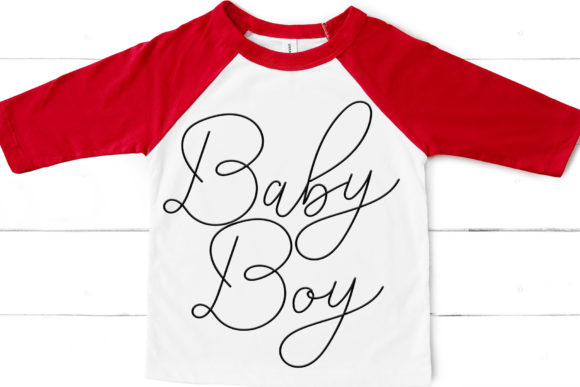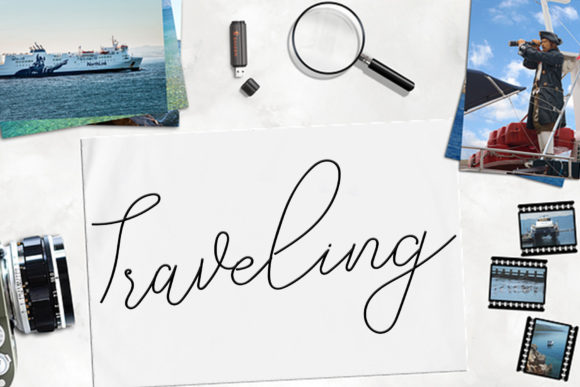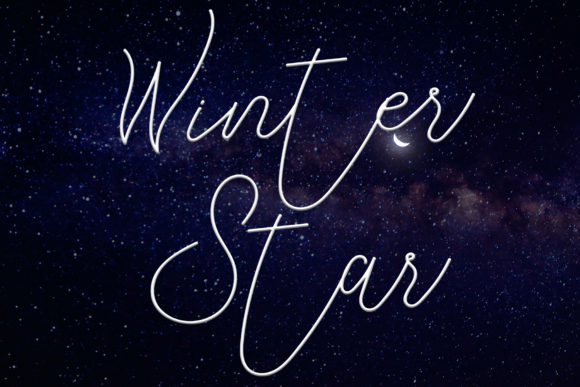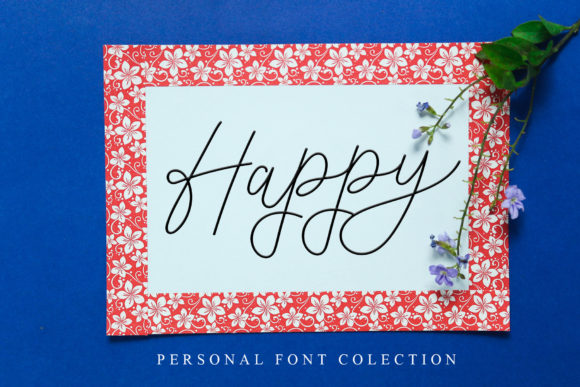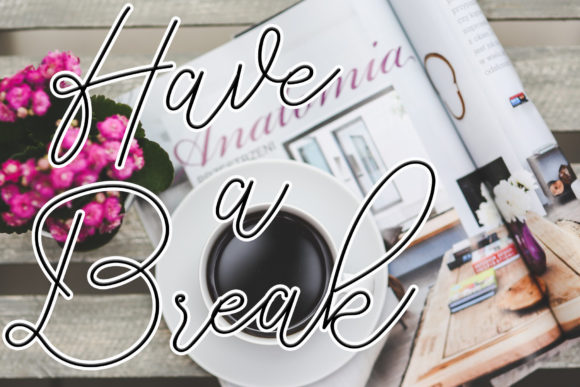
The Perfect Brushstroke: Unveiling Cashews Font
Have you ever been working on a design project, pouring your heart and soul into it, only to feel like something’s missing? That elusive touch of elegance, the je ne sais quoi that elevates your work from good to great? For designers, finding the right font can be the difference between a mediocre and a stunning design.
Enter Cashews Font, a fashionable and refined handwritten font that’s about to become your new go-to companion. With its delicate, thin, and smooth vibe, Cashews Font is the perfect addition to any design project that requires a touch of sophistication. Whether you’re working on a branding project, a wedding invitation, or a blog post, this font is sure to add a level of refinement that will leave a lasting impression.
- Unique Characteristics: The font features a unique blend of modern and vintage elements, with intricate details and subtle texture, adding a touch of sophistication to designs.
- Kerning and Ligatures: The font includes advanced kerning and ligature features, ensuring smooth text rendering and a polished appearance in designs.
Cashews Font Review
As a designer, I was excited to dive into the Cashews Font, but my experience was a mix of highs and lows. Here’s my honest review:
- Unique aesthetic: Cashews Font has a distinct, quirky feel that sets it apart from other fonts.
- Clear legibility: The font is easy to read, even at smaller sizes.
- Customization options: Cashews Font comes with a range of styles and weights, making it versatile for different design applications.
- Limited language support: Cashews Font may not be optimized for languages with complex scripts or non-Latin characters.
- Not ideal for body text: While the font is great for headings and titles, it may not be the best choice for large blocks of body text.
- Some characters may not render correctly: I encountered some issues with character rendering, particularly at smaller sizes.
Overall, Cashews Font is a solid choice for designers looking for a unique, eye-catching font for headings and titles. While it has some limitations, its strengths make it a great addition to any design toolkit. With some careful consideration and planning, you can get the most out of this quirky font.
For a more authentic look, pair the Cashews font with a distressed or vintage texture overlay.
The Cashews font is ideal for:
1. Vintage-themed designs (e.g., invitations, posters, etc.).
2. Distressed or grunge-inspired designs.
3. Adding a unique touch to social media graphics or presentations.
Experiment with different font sizes, colors, and styling options to achieve the desired look.